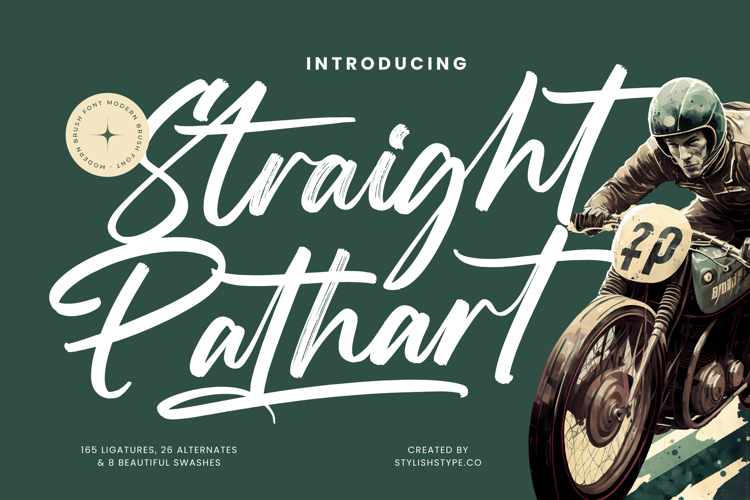
Straight Pathart - Modern Brush Font
Straight Pathart is a modern brush font that exudes boldness, energy, and contemporary flair. With its strong brush strokes, dynamic ligatures, and natural texture, this font is perfect for projects that demand attention and creativity. Featuring 165 ligatures, 26 alternates, and 8 swashes, Straight Pathart provides designers with the flexibility to craft expressive, high-impact lettering compositions.
This typeface shines in branding. Ideal for logos, streetwear, creative agencies, and lifestyle products, Straight Pathart communicates confidence and originality. Its brush style ensures that branding projects appear bold, stylish, and unforgettable, making it especially effective for modern and trend-driven businesses.
In editorial and publishing, Straight Pathart adds strength and artistry. Magazines, posters, book covers, and album artwork benefit from its rugged yet stylish look. It creates editorial layouts that feel powerful and visually striking, turning titles into focal points.
For web typography, this brush script integrates seamlessly across blogs, websites, portfolios, and social media content. Its energetic strokes ensure that digital media projects feel authentic, bold, and engaging, appealing to audiences who value creativity and strength.